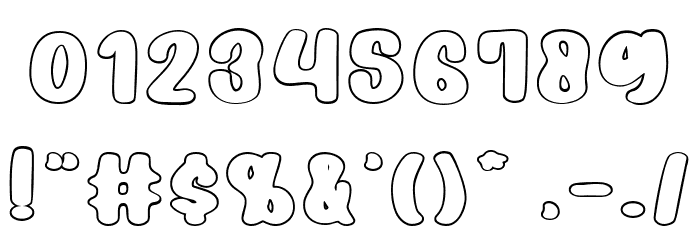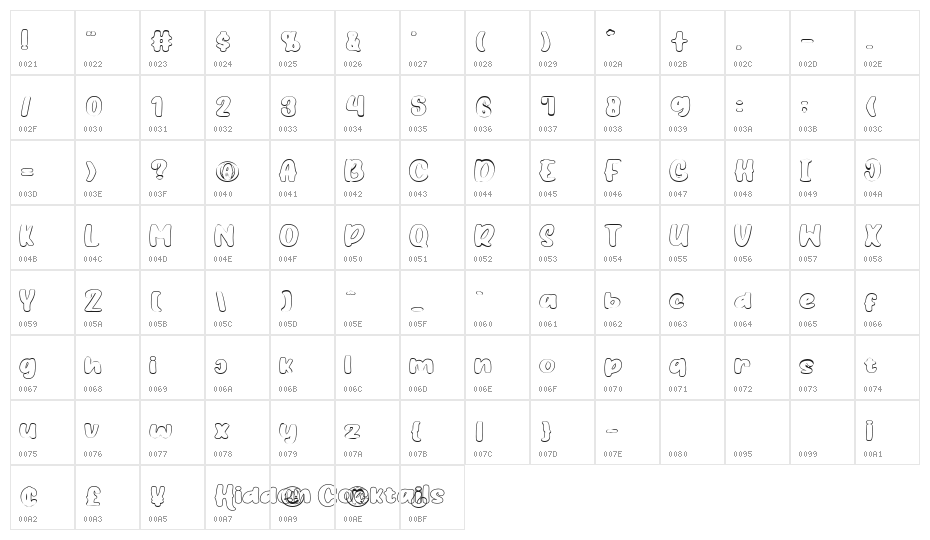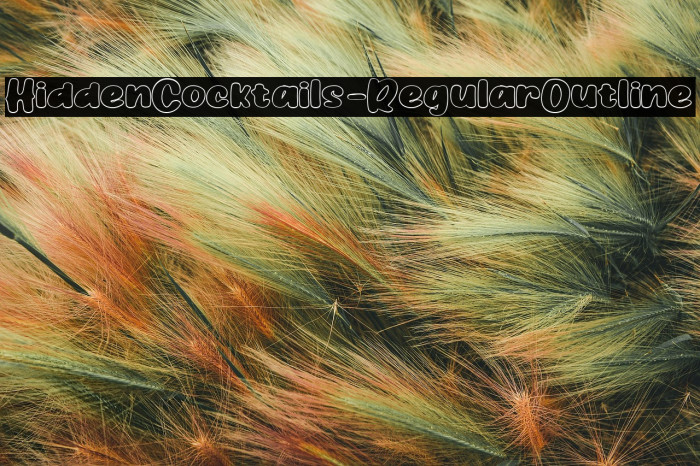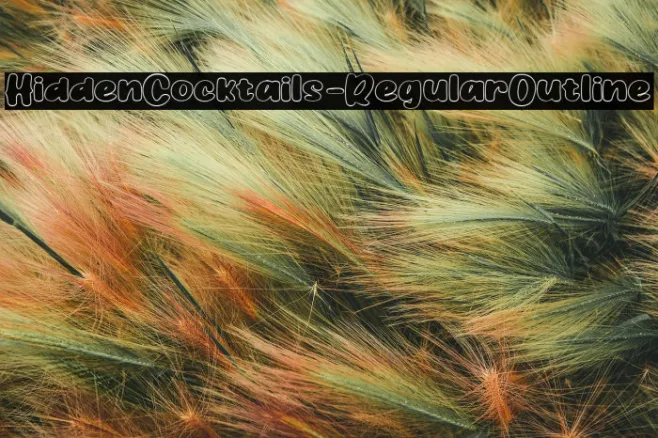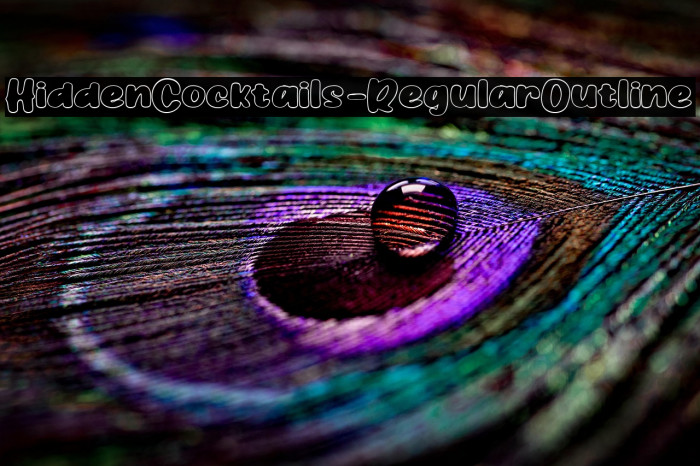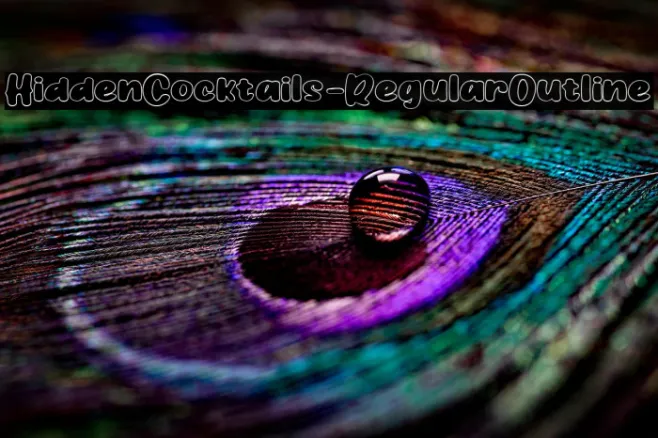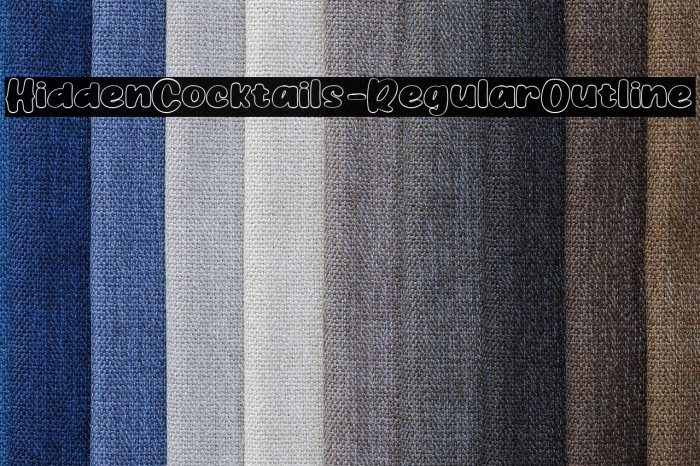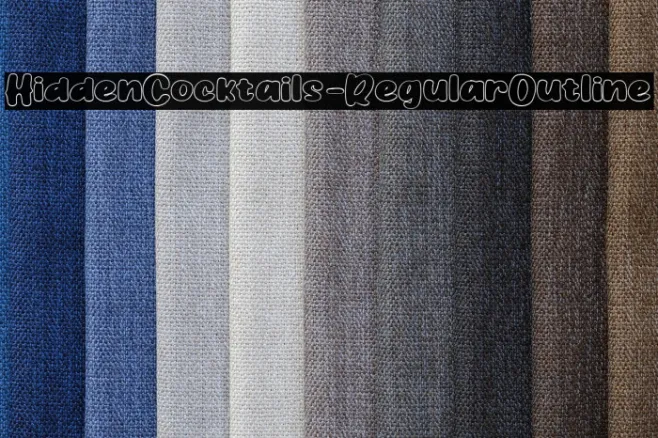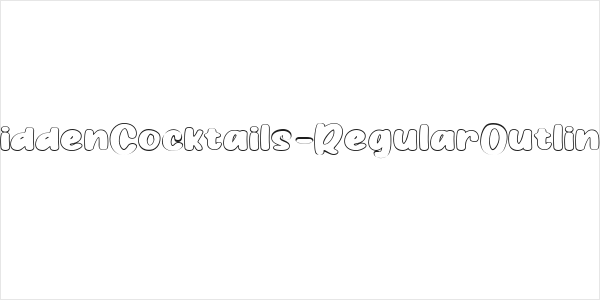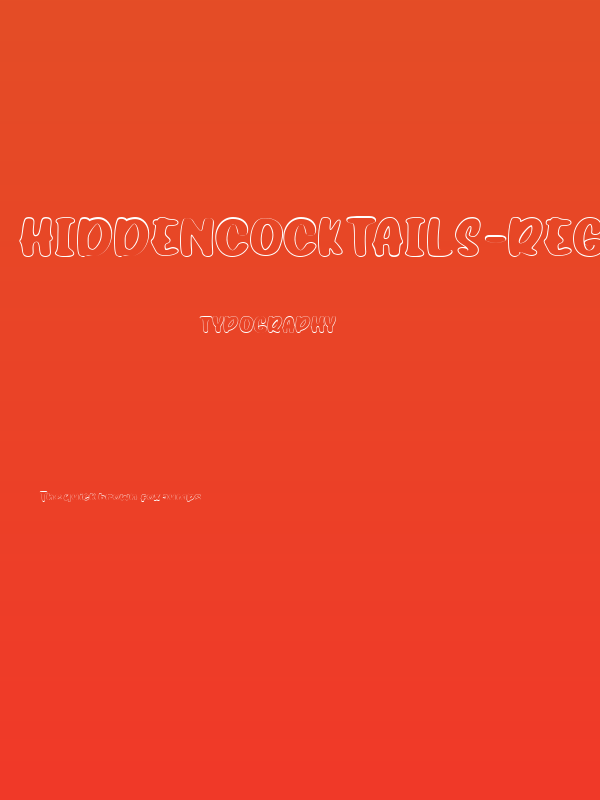
HiddenCocktails-RegularOutline Font
HiddenCocktails-RegularOutline Description
This playful and bold font features a unique outline style that gives it a fun and whimsical appearance. The characters are rounded and bubbly, with a consistent thickness throughout, creating a cohesive and eye-catching look. The uppercase and lowercase letters maintain a uniform style, while the numbers and special characters complement the overall design. The font's outline nature adds a layer of depth, making it suitable for creative and informal projects. Its distinct style makes it stand out, perfect for capturing attention in various design contexts.
| Proposed Projects | Ideal for children's books, party invitations, playful branding, and creative posters. |